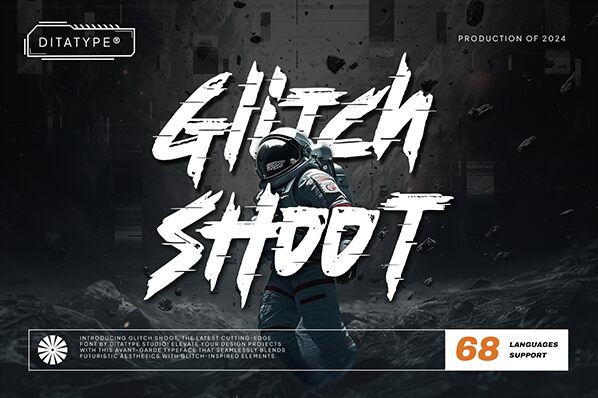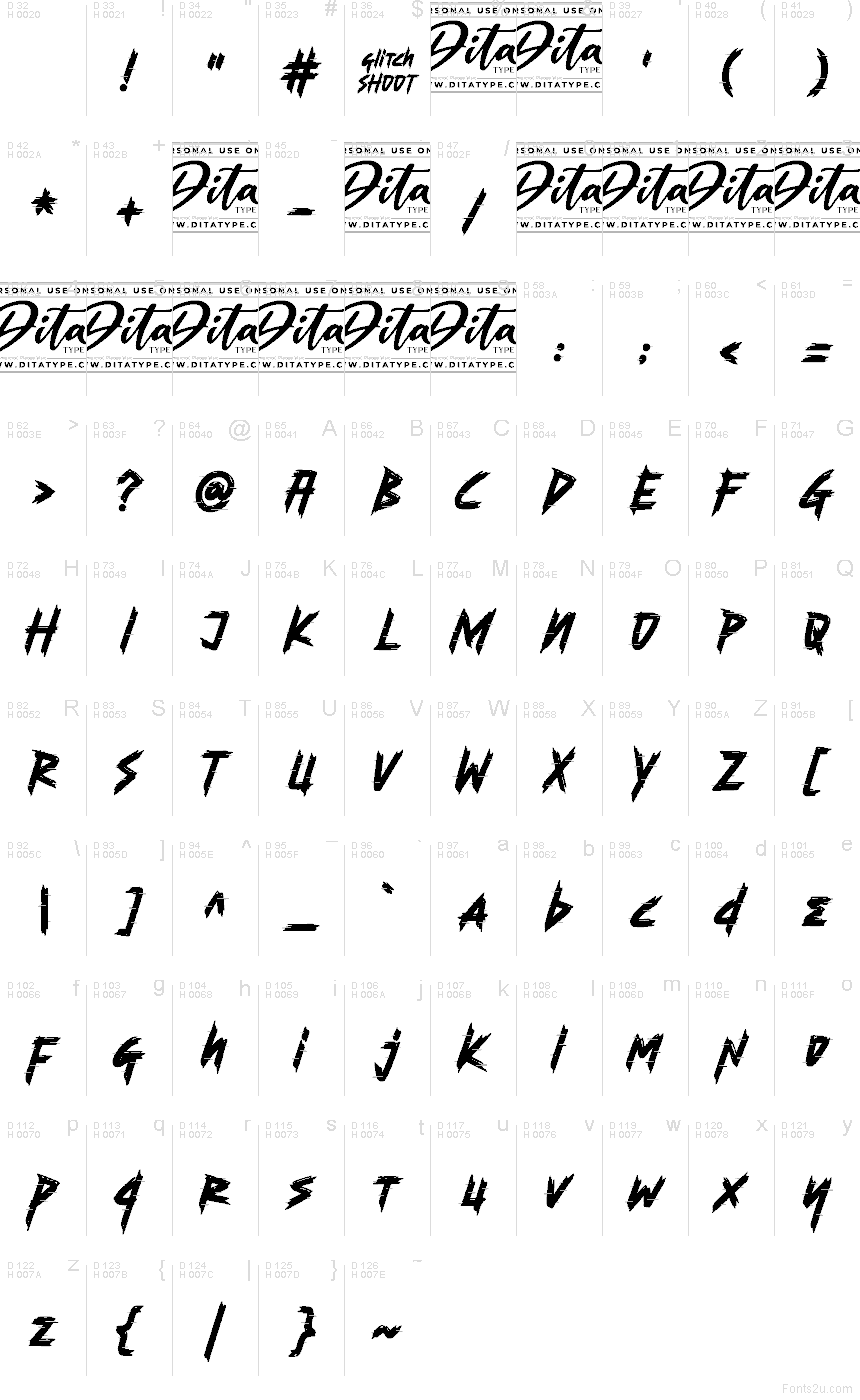
Glitch Shoot font by Ditatype is a free brush font that fuses raw hand‑painted strokes with sharp, digital glitches. Each letter feels like it’s been slashed onto the page, then sliced by static, creating a tense, electric rhythm that grabs attention instantly. The strokes are rough, fast, and slightly fragmented, giving your titles a fierce, high-energy edge that feels both streetwise and futuristic.
Using Glitch Shoot, you can push intensity in esports branding, game titles, horror posters, album covers, YouTube thumbnails, and edgy event promos. This free font thrives at large sizes where its jagged cuts and streaky texture can really show off. Pair it with a clean, neutral sans serif for body text to keep layouts readable while Glitch Shoot does the shouting up top.